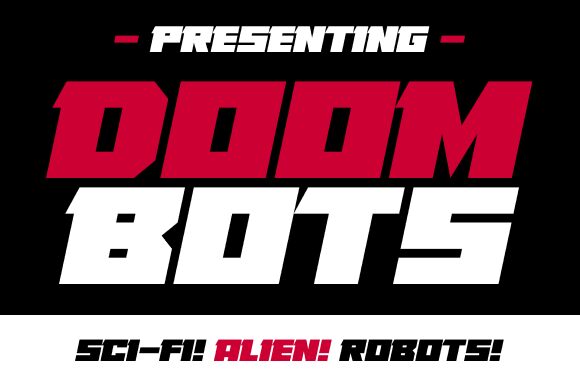
Doombots Italic
Doombots Italic font by Darrell Flood of Hawtpixel is a futuristic bold display font that combines geometric shapes and angular strokes in its design. The expanded, edgy style with slightly aggressive elements gives it an industrial appearance. The solid letters have pointy edges on both ends with no rounded corner found in any of the glyphs.
Being a free display font for personal use, Doombots is dedicated to movie poster designs, book covers, video game designs, comic books zines, landing pages, banners and header images, branding and packaging designs as well as advertisements.